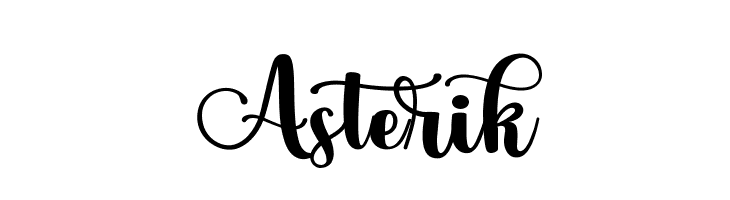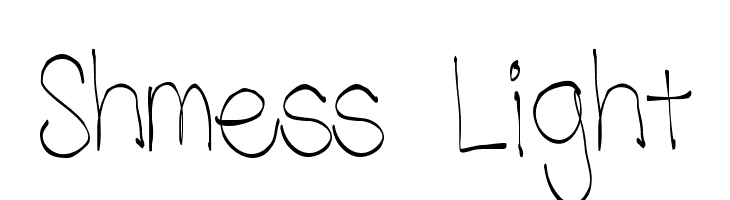
( Fonts by Iconian Fonts )
A bold, distressed font with an expanded width and rugged texture.
( Levi Szekeres - www.loremipsum.ro )
A sleek, modern font with thin, elongated letterforms and a minimalist design.
A bold, gothic blackletter font with intricate detailing.
A whimsical and decorative font with elegant curls and flowing lines.
A playful, whimsical font with a handwritten quality and rounded edges.
( Fonts by Typodermic Fonts )
An elegant italic serif font with refined, elongated characters and a classic appeal.
( Katherine )
A playful, hand-drawn font with tall, narrow letters and a whimsical style.
( Fonts by ReveryWorks )
A playful, bold outline font with bubbly, rounded uppercase letters.
( memesbruh03 - Aaron D. Chand )
A pixelated, blocky font with a retro digital aesthetic.